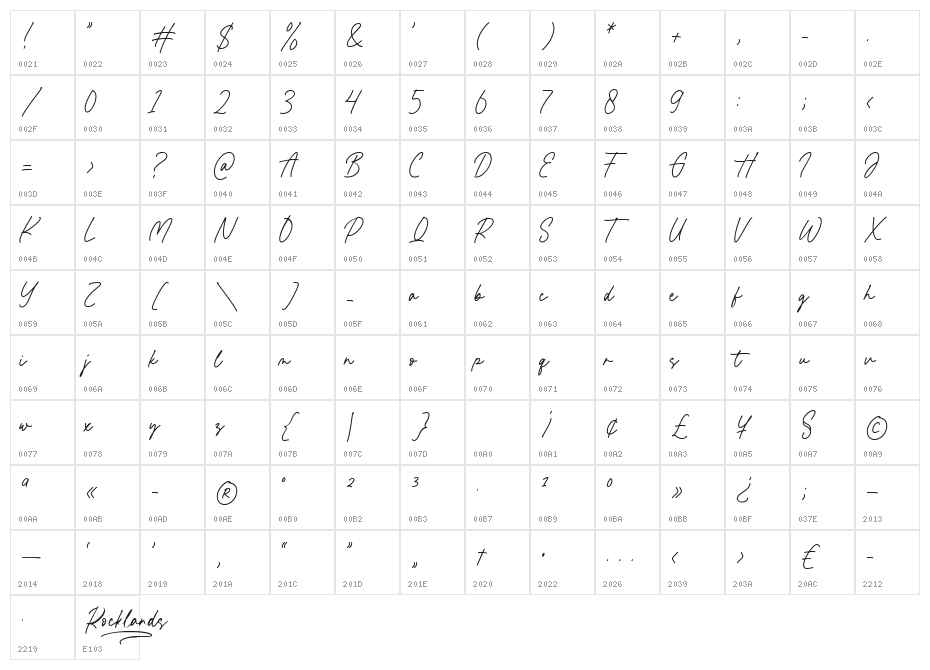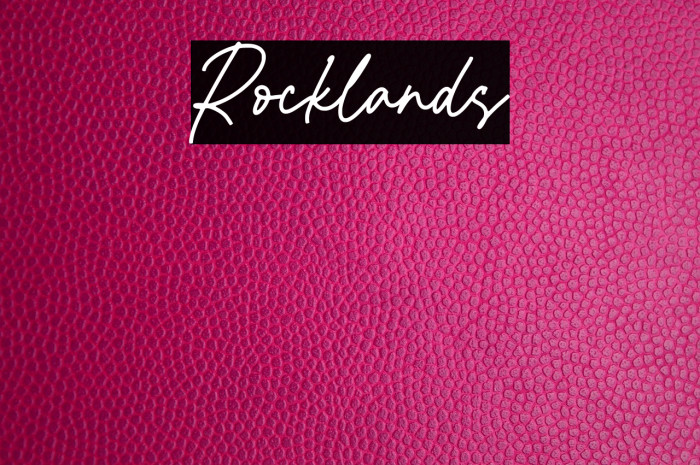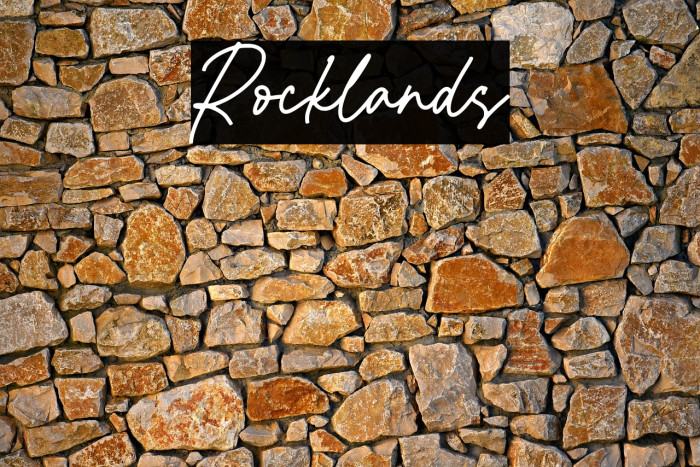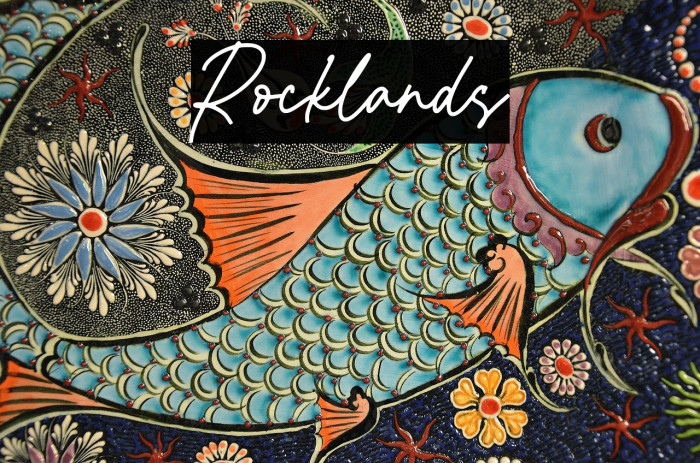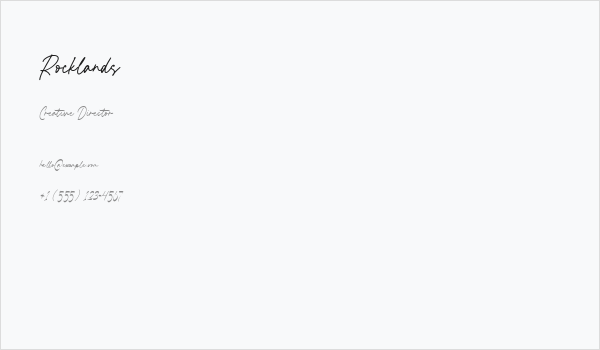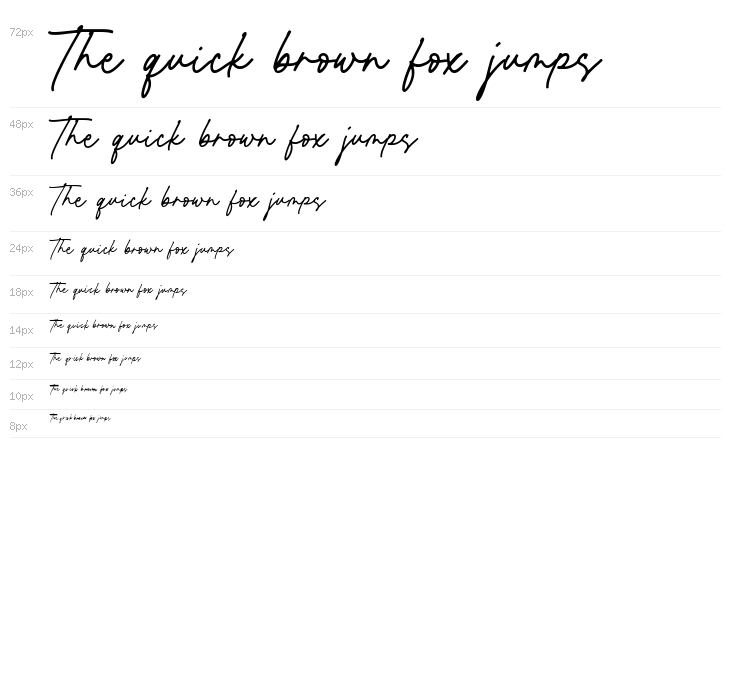
Rocklands Font
Rocklands Description
A flowing, cursive script font with a handwritten style, featuring smooth, connected strokes and a casual elegance.
| Overall Style | Casual, Elegant |
| Use Case | Headlines, Decorative text |
| Proposed Projects | Invitations, greeting cards, personal branding. |